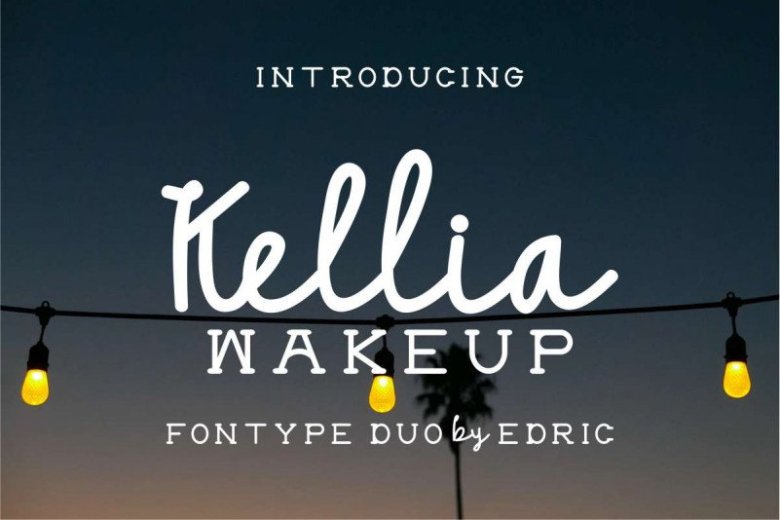
Kellia Wakeup Font Duo
Whats up everybody .. Introducing : Kellia Wakeup Script and Serif font family. Kellia Wakeup is a font family with three exclusive styles : script, serif and outline. It has a classic and beautiful unique glyphs.